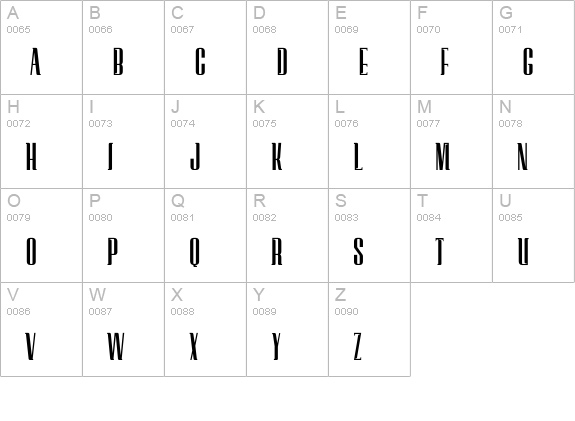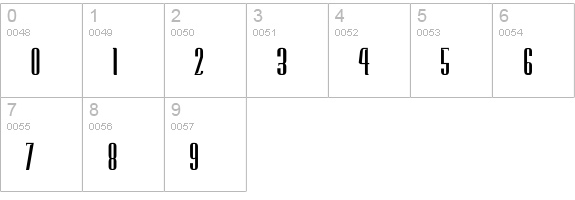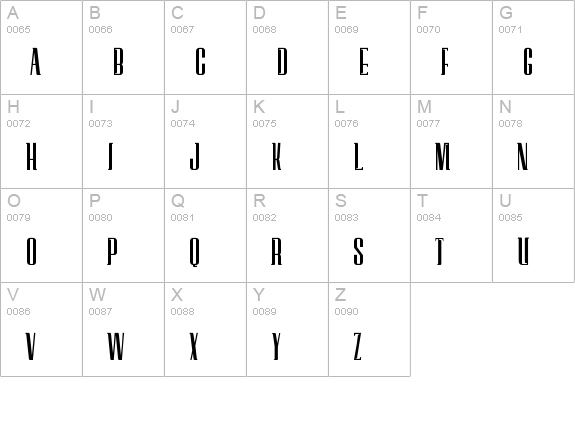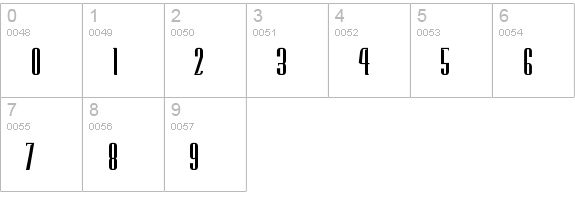
Technique Font Details
Introducing Technique font, a stunning display typeface that combines elegance with a touch of modernity. With its sleek and refined letterforms, Technique captures attention and adds a sophisticated flair to any design project. This versatile font is perfect for a wide range of applications, from logos and branding to headlines and posters. Its clean lines and balanced proportions make it easy to read, while its unique details and subtle curves give it a distinctive charm. What makes Technique font even more enticing is that it is available for free! Yes, you read that right. This amazing font can be freely downloaded at FontsMarket.com, allowing you to enhance your creative endeavors without any cost. Whether you're a professional designer or just starting out, Technique font is a valuable asset that can elevate your work to new heights. Designed with precision and attention to detail, Technique font offers a wide range of weights and styles, giving you the freedom to experiment and create visually captivating designs. Its versatility allows it to seamlessly adapt to various design themes and concepts, making it a reliable choice for both print and digital projects. Don't miss out on this fantastic opportunity to enhance your typography collection with a font that exudes style and sophistication. Download Technique font for free at FontsMarket.com and experience the power of this remarkable typeface firsthand. Elevate your designs and leave a lasting impression with Technique font – the perfect blend of elegance and modernity.